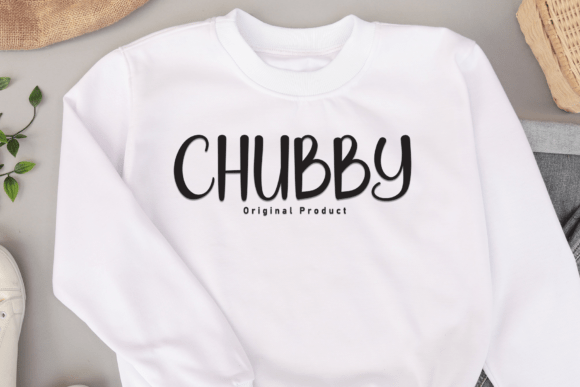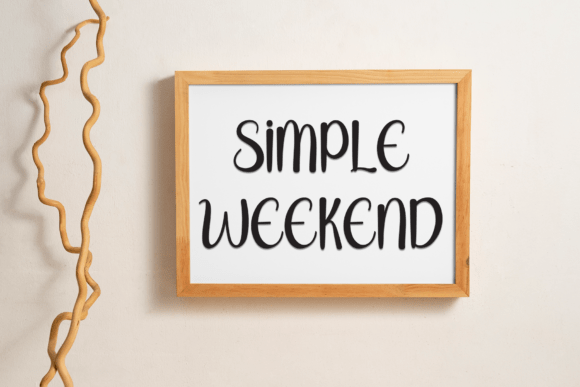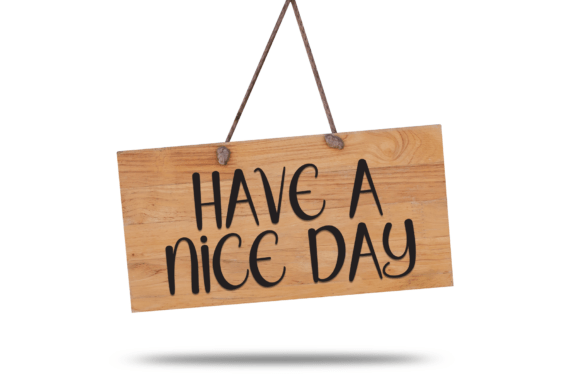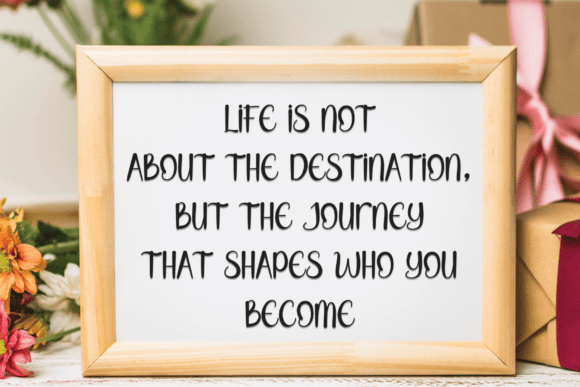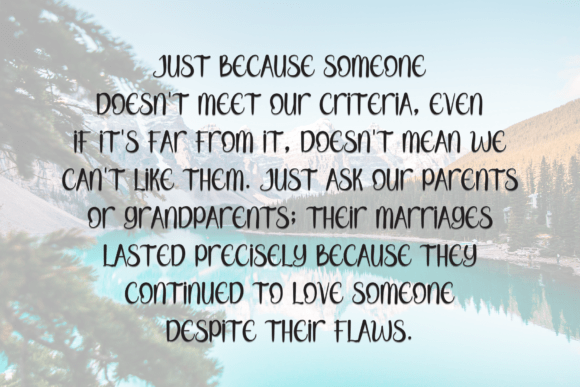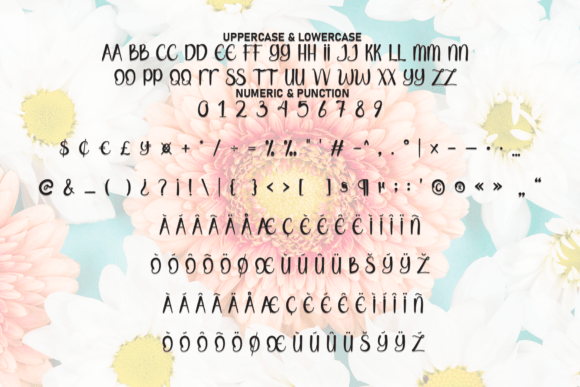
Have you ever been working on a design project, and suddenly, you just know you need a little something extra to bring it to life? Maybe it’s a wedding invitation, a birthday card, or even a social media post, but whatever it is, you just can’t seem to put your finger on the right font to make it pop.
Enter the Dahlia Font, a charming and whimsically playful handwritten display font designed to sprinkle a dash of joy into your creations. This delightful font is perfect for adding a touch of warmth and playfulness to your designs, making it the optimal choice for wedding invitations, heartfelt cards, and more. Its stylish simplicity and overall versatility make it a valuable addition to any designer’s toolkit, and with its handcrafted aesthetic, you can be sure to add a distinctive charm to your next design project.
Dahlia Font Key Features
- Font Family: Dahlia Font is a sans-serif font family designed for modern and elegant typography.
- Size and Resolution: The font family includes 6 font weights, ranging from Thin to Extra Bold, with corresponding font sizes and resolutions to match various design needs.
- Unique Characteristics: Dahlia Font features a distinctive rounded design with subtle geometric shapes, giving it a friendly and approachable feel.
- Language Support: Dahlia Font supports a wide range of languages, including Latin, Cyrillic, and Greek scripts, making it a versatile choice for global design projects.
- Scalability: Dahlia Font is optimized for use at various scales, from small text to large headings, ensuring it remains legible and visually appealing in different contexts.
Dahlia Font Review
I recently had the chance to work with the Dahlia font, and I must say, it’s a beautiful addition to any design project. Here are some things that stand out:
- ✨ Elegant and sophisticated feel: The Dahlia font exudes a sense of refinement and class, making it perfect for high-end branding, luxury products, or any project that demands a touch of sophistication.
- ✨ Versatile: Dahlia is a highly versatile font that works well in both print and digital formats. Its clean lines and modern aesthetic make it a great choice for a wide range of applications, from magazines and newspapers to websites and social media.
- ✨ Unique: The Dahlia font has a distinct, one-of-a-kind look that sets it apart from more common fonts. This makes it a great choice for designers looking to add some personality to their projects.
- ⚠️ Limited character set: While the Dahlia font is beautifully designed, it’s not a comprehensive font in terms of character set. This may be a drawback for designers who need to use special characters or languages.
- ⚠️ Not ideal for body text: Due to its elegant and refined feel, the Dahlia font may not be the best choice for large blocks of body text. It’s better suited for headlines, titles, and other smaller text elements.
Overall, the Dahlia font is a beautiful addition to any design project, but it’s essential to understand its limitations and use it wisely. With its elegant feel, versatility, and unique look, it’s a great choice for designers looking to add some sophistication and personality to their work.
The Dahlia Font is suitable for various design projects, including:
- Artistic and creative projects.
Tips for Getting the Most Out of Dahlia Font
To get the most out of Dahlia Font, keep the following tips in mind:
- Use the font in conjunction with other elegant and sophisticated fonts.
The Dahlia Font is a beautiful, elegant script font, but sometimes you may need alternatives for your design projects. Here are a few options to consider: